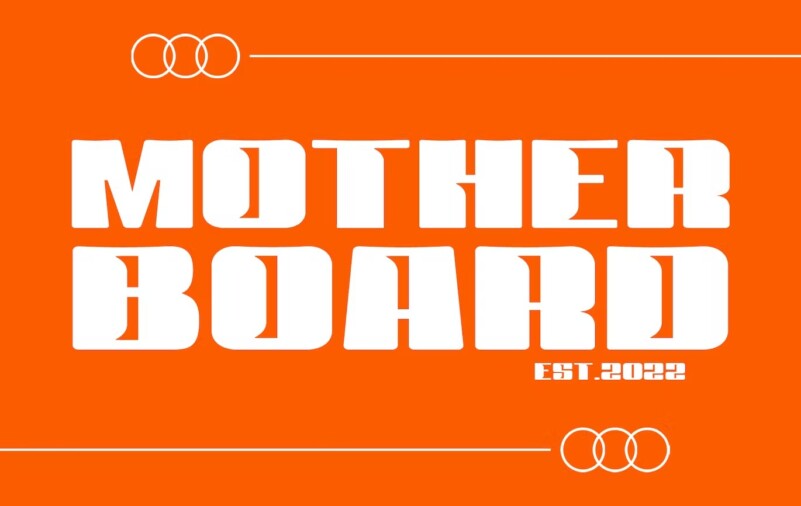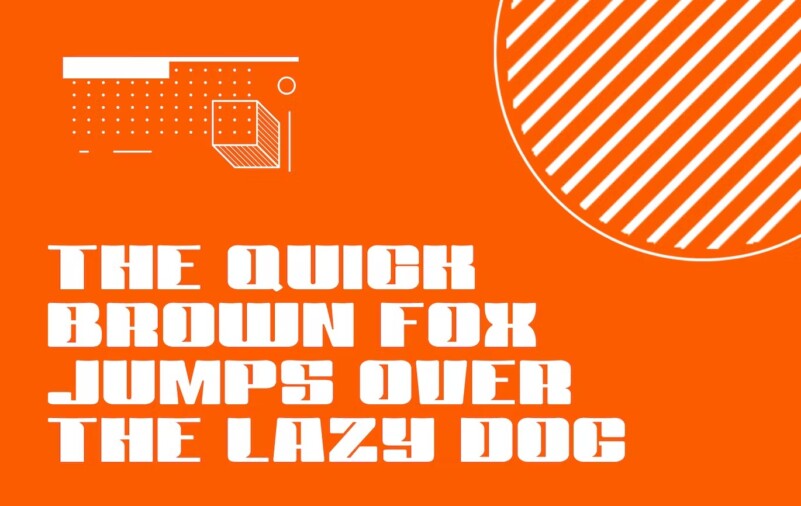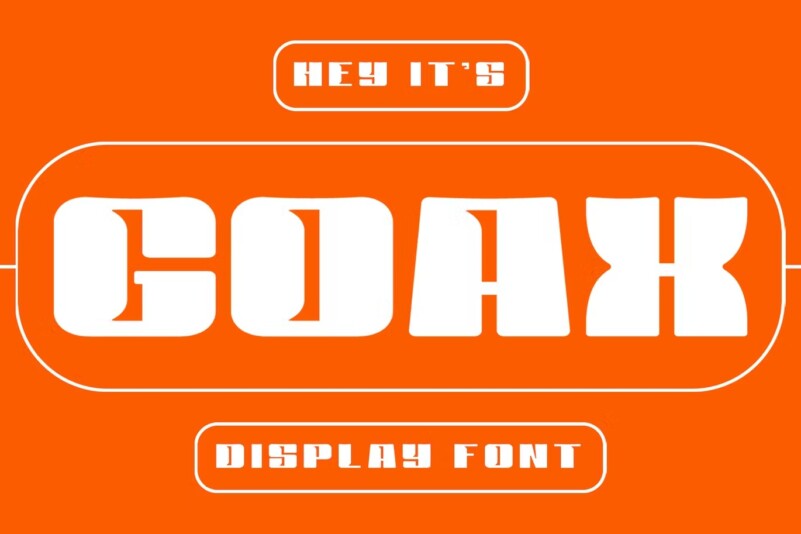
Goax Font
Goax is a special retro style font. Crafted with precise precision. It is perfect for branding design, logo, greeting cards, title packaging. and other designs. Immediately use our Fonts to make your work even more impressive.